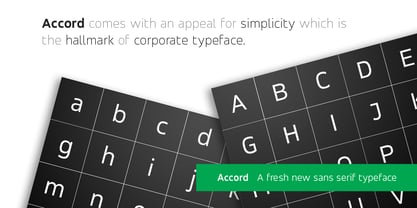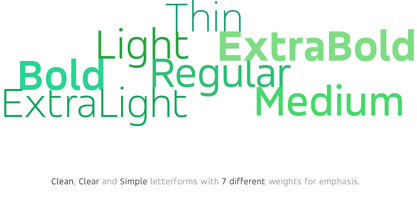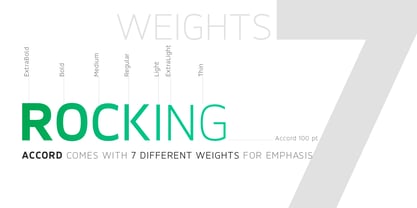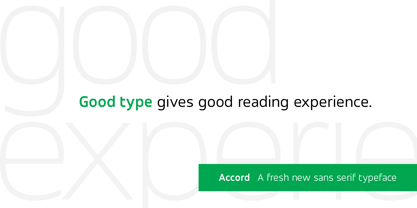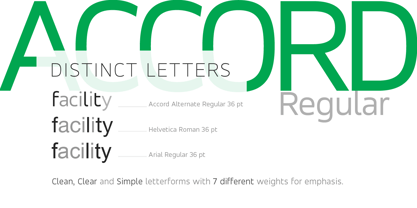
Accord Font
Accord Font harmonizes diplomatic communications, international treaty documents, peace organization branding, corporate partnership agreements, mediation service materials, legal arbitration presentations, conflict resolution publications, collaborative workspace signage, harmony-focused wellness centers, unity campaign graphics, consensus-building workshops, and diplomatic event materials where agreement and harmonious collaboration create successful outcomes.
This diplomatic typeface generates excitement through its exceptional ability to communicate balance, agreement, and mutual understanding that creates typography fostering cooperation and collaborative success. Accord Font embodies the spirit of harmonious collaboration with its perfectly balanced letterforms that suggest stability, fairness, and mutual respect. The font's sophisticated design approach reflects principles of diplomatic communication, featuring measured proportions and consistent rhythm that create visual harmony and professional trustworthiness. Its distinctive character conveys the reliability and balanced judgment essential for successful negotiations, partnerships, and collaborative endeavors.
The Accord Font family includes comprehensive diplomatic variations such as Regular, Light, Medium, Bold, and Heavy weights, each maintaining the font's characteristic balance while offering different levels of authoritative presence. The collection features condensed versions for efficient document formatting, extended character sets for international applications, and specialized punctuation for legal and diplomatic documentation. Advanced typography features include multilingual support, mathematical symbols for statistical presentations, and formal document styling that meets international communication standards.
Professional mediators and international organizations consistently choose Accord Font Free Download for projects requiring typography that communicates fairness, reliability, and collaborative spirit. This remarkable typeface excels in applications where building trust and establishing credibility are fundamental to successful outcomes. The font's balanced qualities make it particularly effective for legal services, diplomatic institutions, and corporate environments where professional harmony and mutual understanding drive business success.
Whether you're designing international agreements, creating mediation service branding, developing collaborative workspace materials, or building partnership communications, Accord Font delivers unmatched diplomatic authority. Its ability to convey balance, trustworthiness, and collaborative excellence makes it invaluable for organizations that facilitate agreements and foster productive relationships. The font's harmonious presence ensures your designs will communicate the professional competence and balanced judgment essential for successful diplomatic, legal, and collaborative communications in today's interconnected business environment.